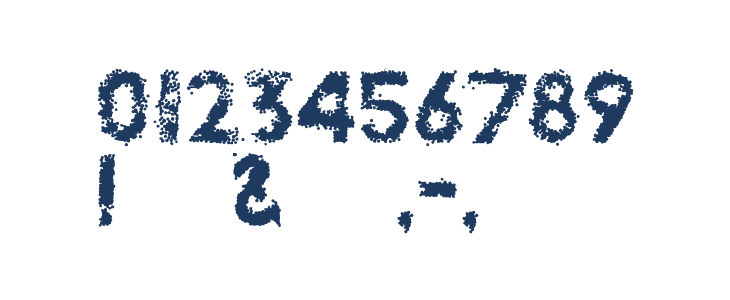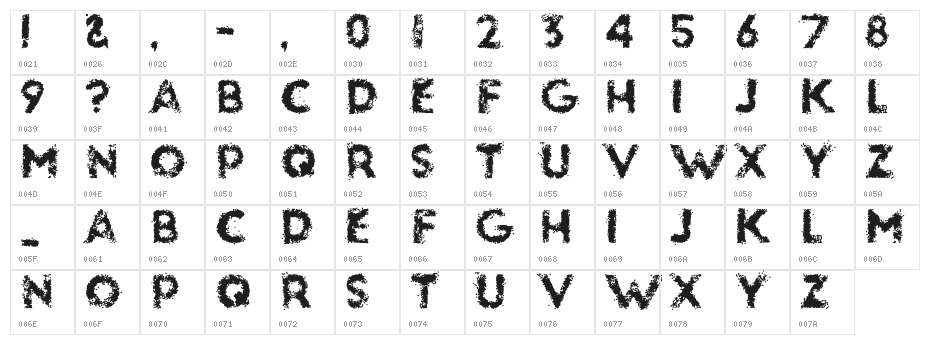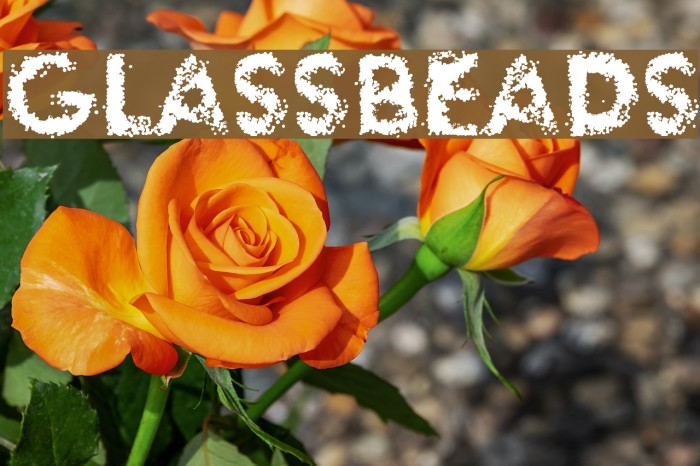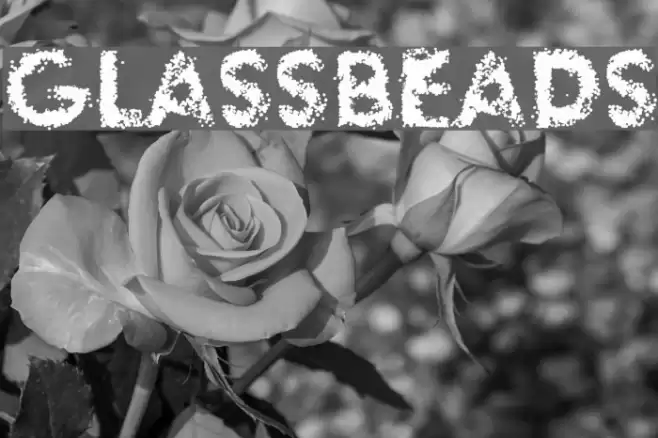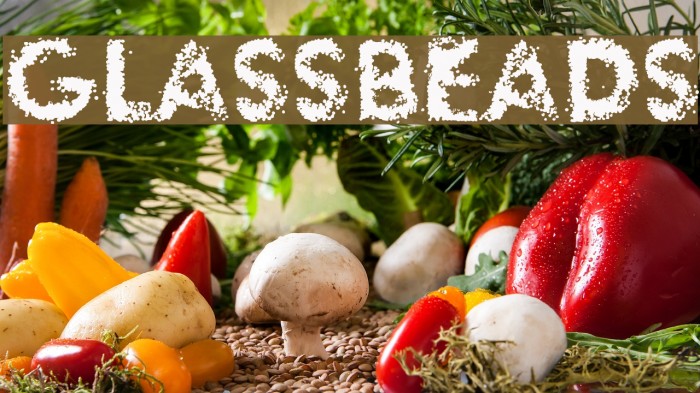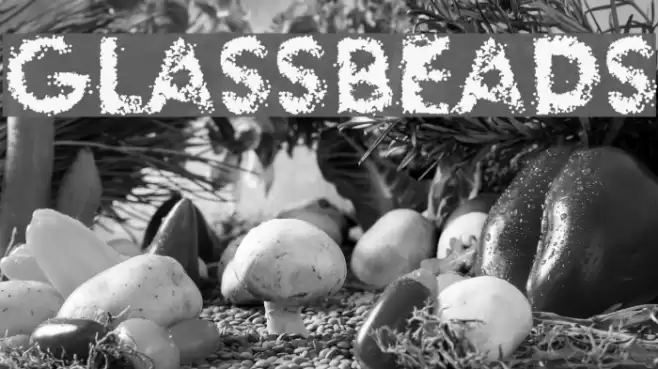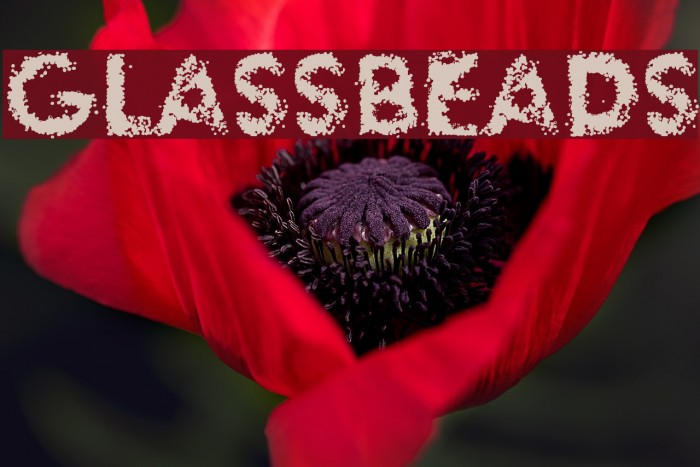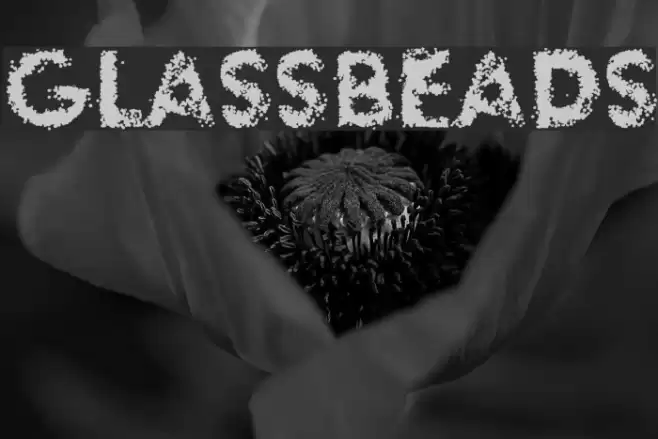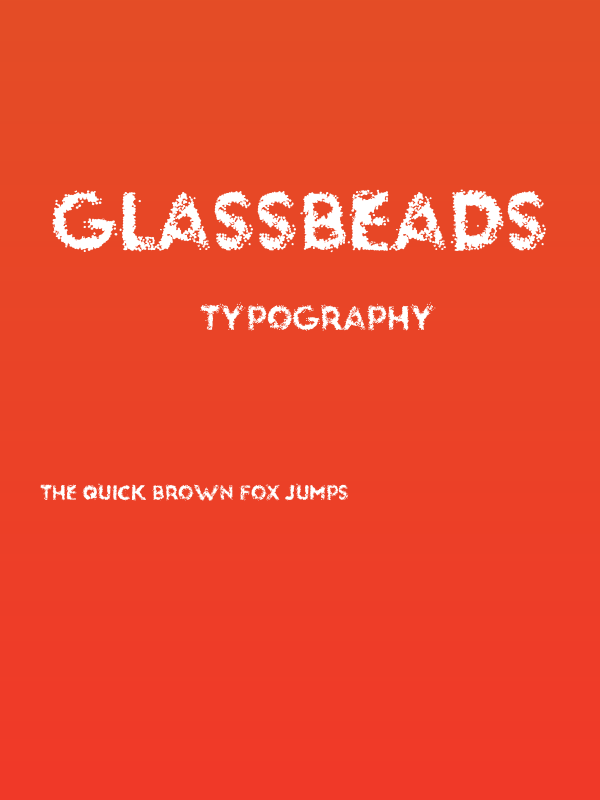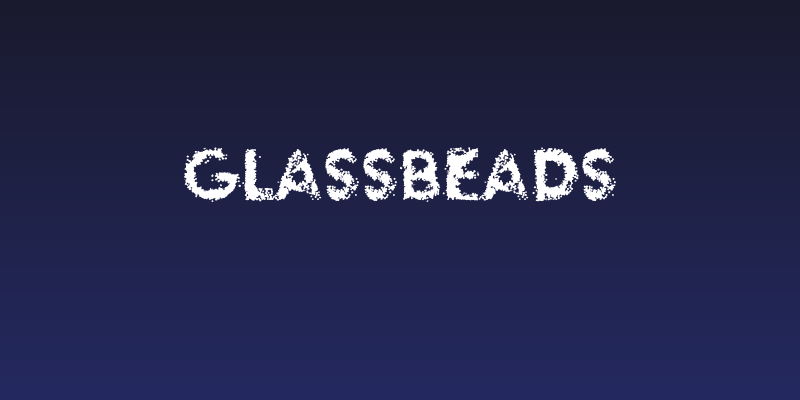
glassbeads Font
glassbeads Description
This font features a unique, textured appearance that resembles scattered particles or a distressed, eroded surface. The characters maintain a bold and substantial form, yet the irregular edges and speckled pattern give it a distinct, artistic flair. The uppercase and lowercase letters are consistent in style, with a playful yet rugged aesthetic. The numbers and special characters follow the same design, ensuring a cohesive look across all elements. This font's unconventional style makes it stand out, adding a creative touch to any project.